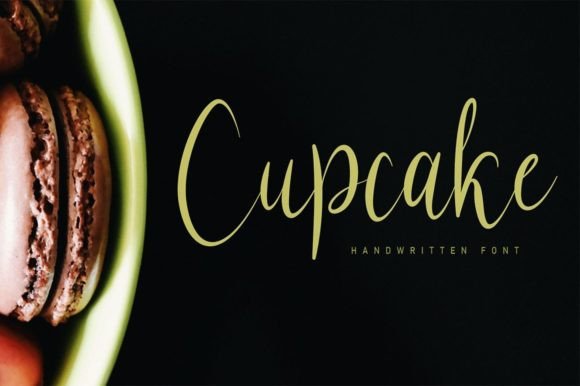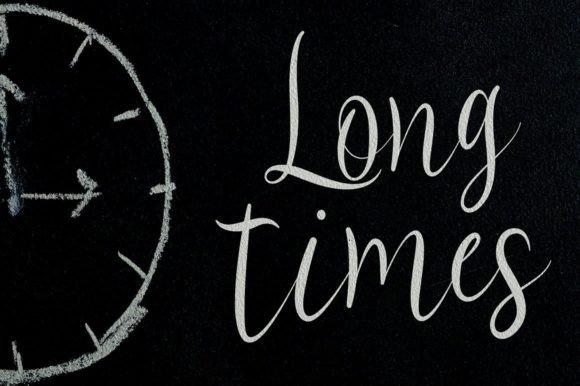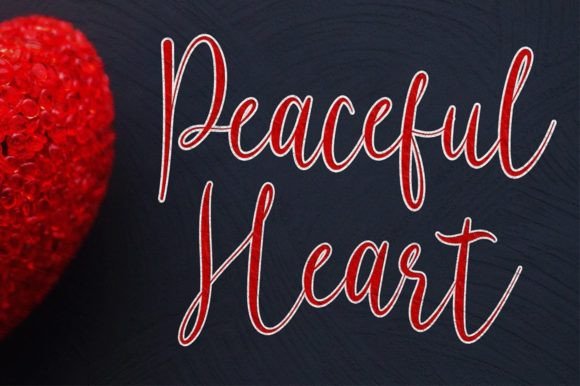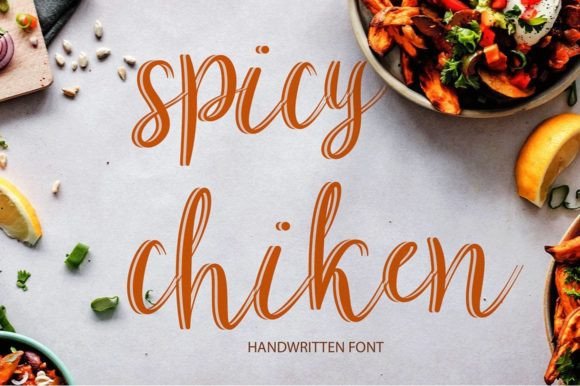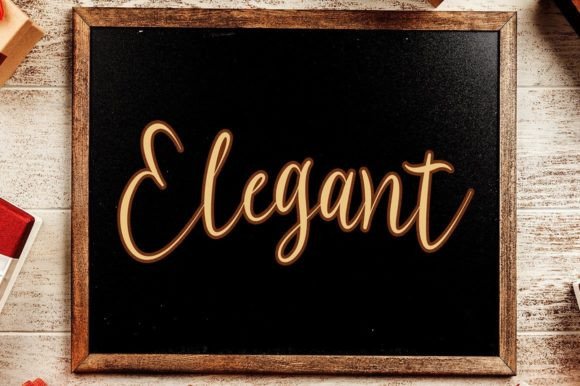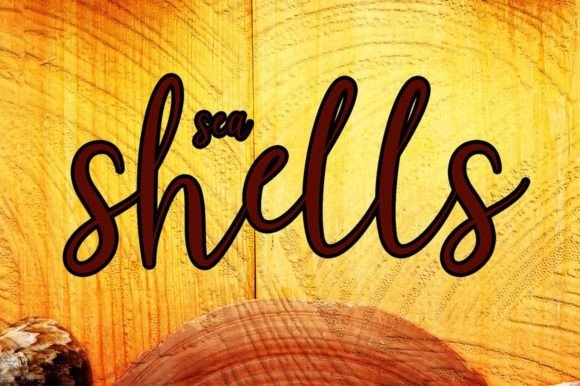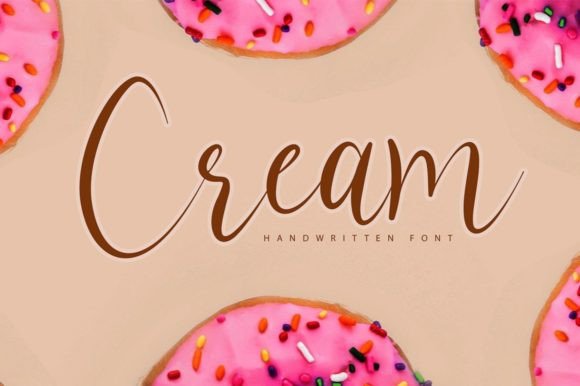
Cream Font: The Enchanting Handwritten Script to Add a Romantic Touch
Cream font is a beautiful, enchanting handwritten script that has captured the hearts of designers and crafters alike. This versatile font is perfect for adding a romantic feel to any project, from greeting cards to headlines, and everything in between. In this article, we’ll dive into the world of Cream font, exploring its features, applications, and the magic it brings to your designs.
The Charm of Cream Font
Cream font is a true gem in the world of typography. Its elegant, cursive strokes and delicate flourishes evoke a sense of whimsy and romance. This handwritten script font is perfect for designers looking to add a personal touch to their work. Whether you’re creating wedding invitations, greeting cards, or social media graphics, Cream font is sure to make your project stand out.
Features of Cream Font
- Handwritten script: Cream font boasts a beautiful, handwritten script that exudes elegance and sophistication.
- Versatile: This font is perfect for a wide range of applications, from greeting cards to headlines, and even digital media.
- Romantic feel: Cream font adds a touch of romance to any project, making it perfect for wedding-related designs, Valentine’s Day cards, and more.
- Elegant strokes: The font features delicate, cursive strokes that add a touch of whimsy to your designs.
Applications of Cream Font
Cream font is an incredibly versatile script that can be used in a variety of applications. Here are some ideas to get you started:
- Greeting cards: Add a personal touch to your greeting cards with Cream font. Perfect for birthdays, weddings, and holidays.
- Wedding designs: Make your wedding invitations, programs, and decorations stand out with this beautiful script font.
- Headlines: Use Cream font to add a touch of elegance to your headlines, perfect for blog posts, social media graphics, and more.
- Digital media: Cream font is perfect for digital media, including social media graphics, email newsletters, and website headers.
Tips for Using Cream Font
To get the most out of Cream font, here are some tips to keep in mind:
- Pair with contrasting fonts: Pair Cream font with a contrasting font to create visual interest and hierarchy.
- Use for headlines and titles: Cream font is perfect for headlines and titles, use it to add a touch of elegance to your designs.
- Experiment with colors: Try out different colors to find the perfect match for your design. Cream font looks stunning in pastel shades, gold, and copper.
| Author | rafly studio |
Cream font is a true gem in the world of typography. Its enchanting handwritten script and elegant strokes make it perfect for adding a romantic touch to your designs. With its versatility and wide range of applications, Cream font is a must-have for designers and crafters alike. Whether you’re creating greeting cards, wedding designs, or digital media, this beautiful script font is sure to make your project stand out.
Get Creative with Cream Font